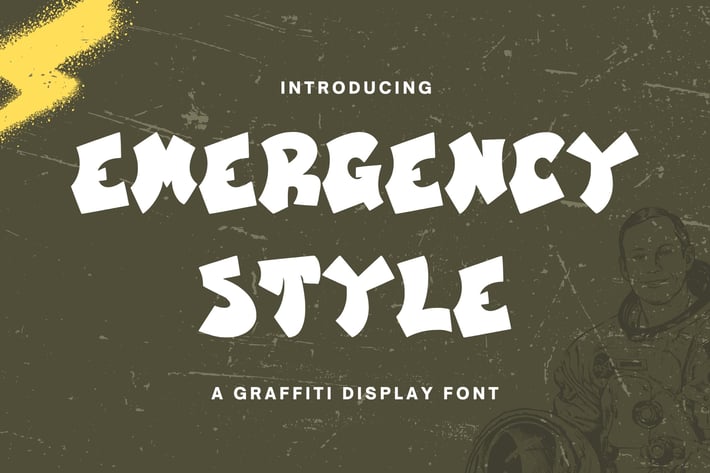
EmergencyStyle - Graffiti Display Font
EmergencyStyle - Graffiti Display Font contains a lowercase, uppercase, symbol, and also supports multi-language. There’s a lot of ligature in this font. EmergencyStyle - Graffiti Display Font also comes with ligatures, stylistic alternates and many more.
this font suitable for fashion, branding, catalog and other design that you want.